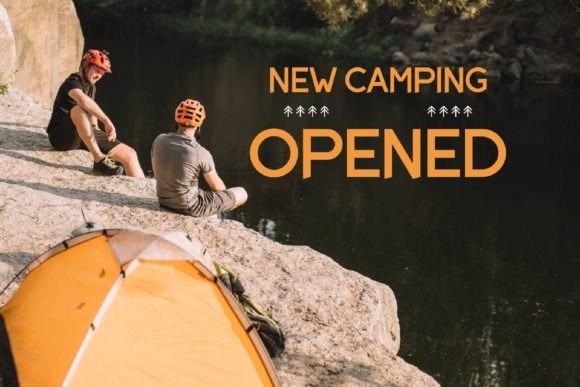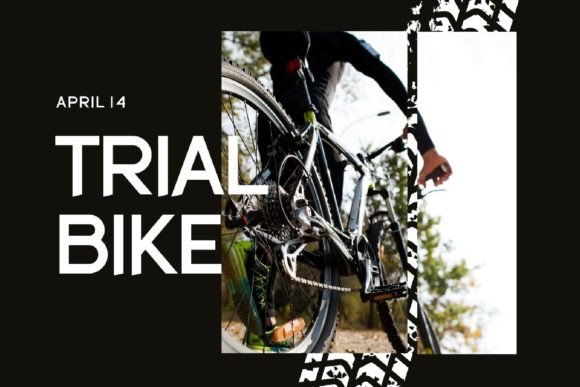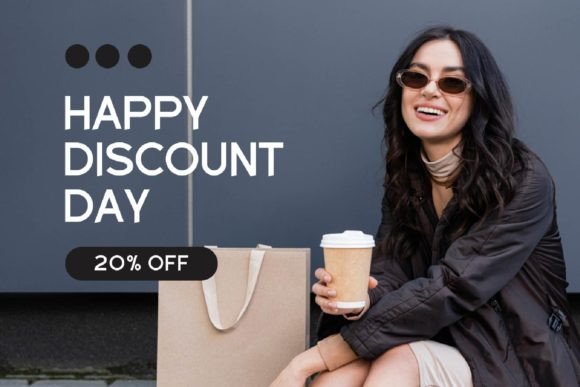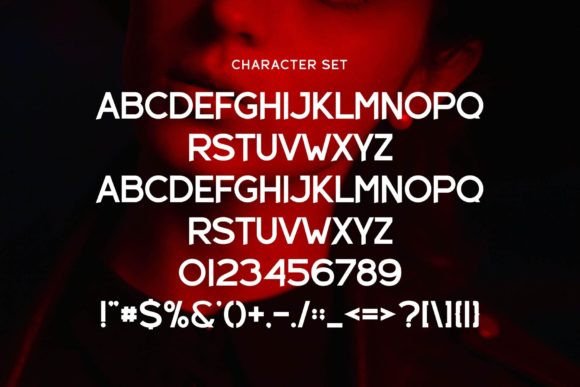
The Garen Sans Font: A Minimalist’s Dream Come True
Have you ever been in the middle of a design project, and suddenly, you’re stuck on finding the perfect font? I recall a particularly frustrating experience while working on a branding project for a luxury beauty client. The brief required a font that exuded elegance, sophistication, and a touch of modernity. After hours of scouring through font libraries, I stumbled upon the Garen Sans Font, and it was love at first sight! 💕
What I Love About Garen Sans Font
- ✨ Clean Lines: Garen Sans Font boasts incredibly clean lines, making it perfect for designs that require a touch of minimalism.
- ✅ Versatility: This font typeface shines in various design applications, from templates and brochures to logos and invitation layouts.
- 💡 Elegant Crafting: The font’s sophisticated feel makes it an excellent choice for beauty designs, elegant crafting, and luxury branding.
While Garen Sans Font is an exceptional typeface, there are a few minor quirks to consider:
- ⚠️ Limited Extras: The font might not come with an extensive range of extras, such as multiple weights or an extensive glyph set.
- 🤔 Legibility at Small Sizes: Like many sans-serif fonts, Garen Sans Font may lose some legibility when used at very small sizes.
The Designer Inspiration Behind Garen Sans Font
Rumor has it that Garen Sans Font was inspired by the minimalist logo design trends of the 2020s. A fictional story goes that a talented type designer, aiming to create a font that embodied the essence of modern luxury, poured their heart and soul into crafting Garen Sans Font. The result is a typeface that exudes elegance, simplicity, and sophistication.
| Font Name | Garen Font |
| Author | Aqeel_Art |
| What is Garen Sans Font best used for? | Garen Sans Font shines in designs that require a touch of minimalism, elegance, and sophistication, such as luxury branding, beauty designs, and elegant crafting. |
| Is Garen Sans Font suitable for body text? | While Garen Sans Font is primarily designed for headings and titles, it can be used for body text in certain contexts, such as in digital interfaces or when a clean, sans-serif font is desired. |
| Does Garen Sans Font support OpenType features? | Yes, Garen Sans Font likely supports OpenType features, such as stylistic alternates and glyphs, which can enhance your design work. |